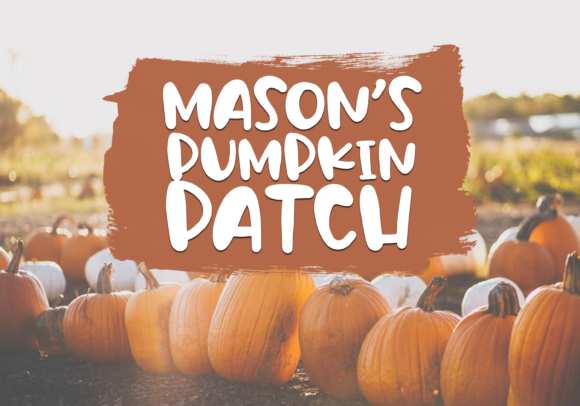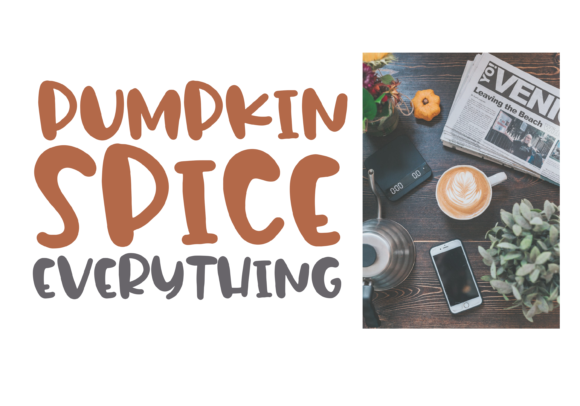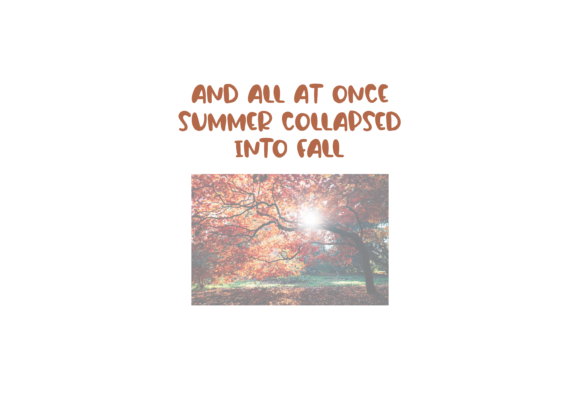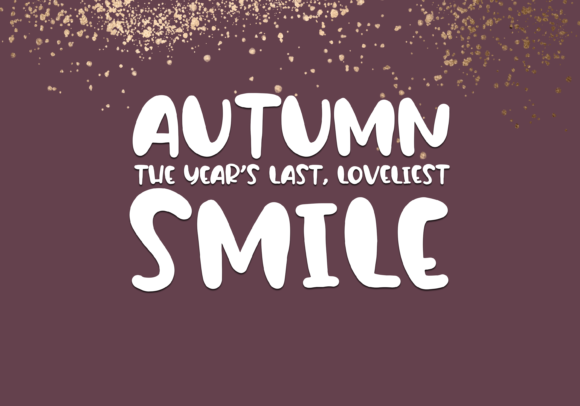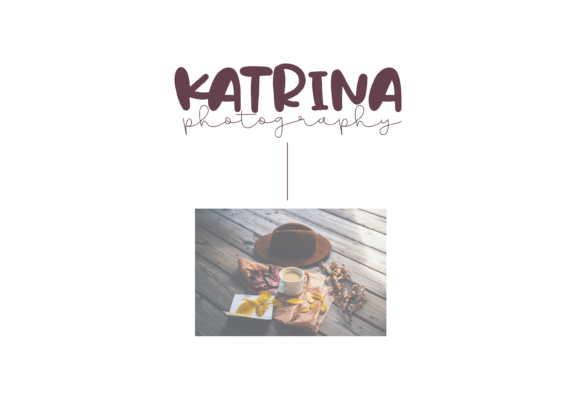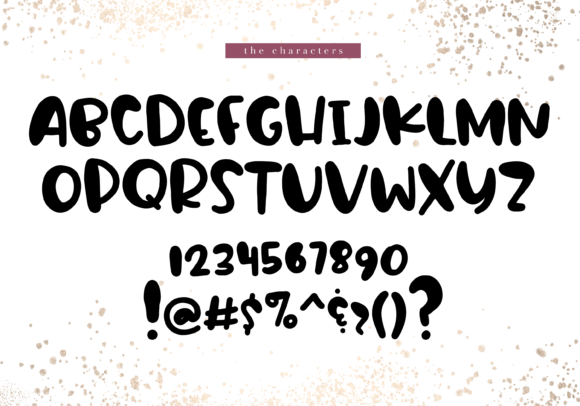
Introducing Apple Cider Font: The Perfect Addition to Your Design Collection
Are you a designer or crafter looking for a unique and eye-catching font to add to your collection? Look no further than Apple Cider Font! This fun handwritten font features bold letters with a bubbly and authentic feel that’s sure to capture the attention of your audience. In this article, we’ll take a closer look at Apple Cider Font and explore its features, benefits, and uses.
What is Apple Cider Font?
Apple Cider Font is a fun and playful handwritten font that’s perfect for a variety of design projects. Its bold letters and bubbly feel make it an ideal choice for creating eye-catching headings, titles, and text. The font’s authentic feel also makes it suitable for designs that require a personal touch, such as invitations, greeting cards, and social media graphics.
Key Features of Apple Cider Font
- Handwritten style: Apple Cider Font features a beautiful handwritten style that’s perfect for creating unique and personalized designs.
- Bold letters: The font’s bold letters make it easy to read and ensure that your designs stand out from the crowd.
- Bubbly and authentic feel: The font’s bubbly and authentic feel adds a playful touch to your designs and makes them more engaging.
Benefits of Using Apple Cider Font
There are many benefits to using Apple Cider Font in your designs. Here are just a few:
- Unique and eye-catching: Apple Cider Font is a unique and eye-catching font that’s sure to capture the attention of your audience.
- Personal touch: The font’s handwritten style and authentic feel add a personal touch to your designs, making them more relatable and engaging.
- Versatile: Apple Cider Font is a versatile font that can be used in a variety of design projects, from headings and titles to invitations and social media graphics.
- Time-saving: The font’s bold letters and easy-to-read style make it a time-saving choice for designers and crafters who need to create high-quality designs quickly.
Uses of Apple Cider Font
Apple Cider Font is a versatile font that can be used in a variety of design projects, including:
- Headings and titles: The font’s bold letters and bubbly feel make it perfect for creating eye-catching headings and titles.
- Invitations and greeting cards: The font’s handwritten style and authentic feel make it suitable for creating personalized invitations and greeting cards.
- Social media graphics: Apple Cider Font is a great choice for creating social media graphics, such as Facebook posts, Instagram captions, and Twitter headers.
- Signs and posters: The font’s bold letters and easy-to-read style make it perfect for creating signs and posters that need to grab attention.
Tips for Using Apple Cider Font
Here are a few tips for using Apple Cider Font in your designs:
- Use it sparingly: Apple Cider Font is a bold and eye-catching font, so use it sparingly to avoid overwhelming your designs.
- Pair it with other fonts: The font pairs well with other fonts, such as sans-serif fonts, to create a unique and visually appealing design.
- Experiment with colors: Apple Cider Font looks great in a variety of colors, so experiment with different colors to find the one that works best for your design.
Apple Cider Font is a fun and playful handwritten font that’s perfect for designers and crafters who want to add a unique and eye-catching touch to their designs. Its bold letters, bubbly feel, and authentic style make it a versatile font that can be used in a variety of design projects. Whether you’re creating headings and titles, invitations and greeting cards, or social media graphics, Apple Cider Font is a great choice. So why not give it a try and see how it can elevate your designs?